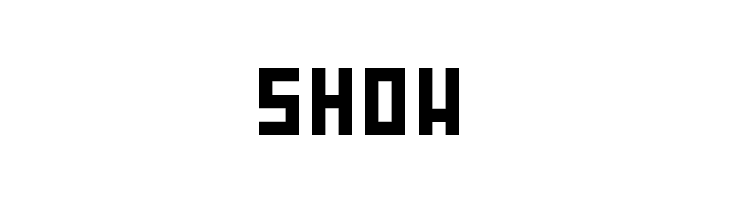
BRICKS SPRAY PERSONAL USE Bold Font
- Font: BRICKS SPRAY PERSONAL USE Bold
( Font by Sven Stuber - www.superlooper.de )
A pixelated, blocky font with a retro digital aesthetic.